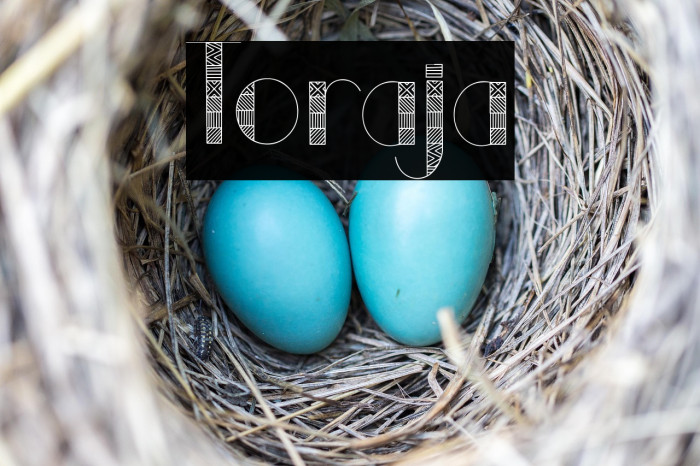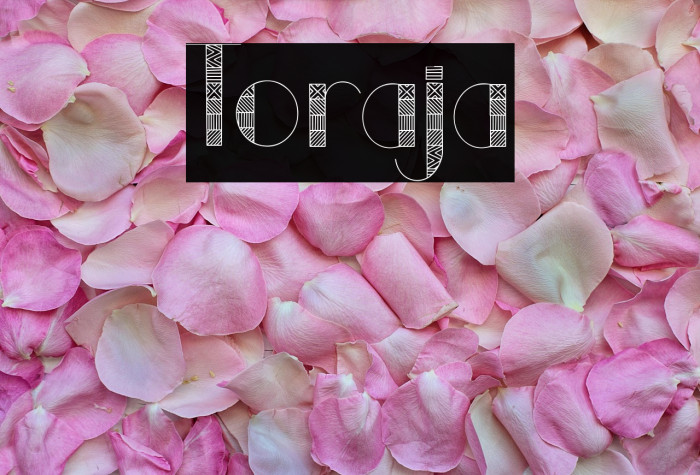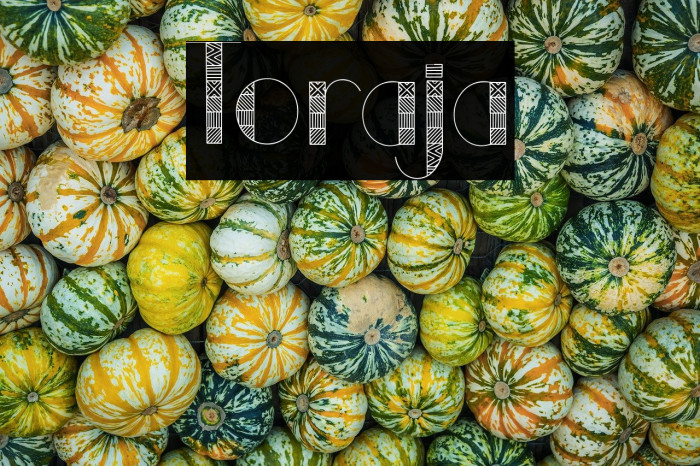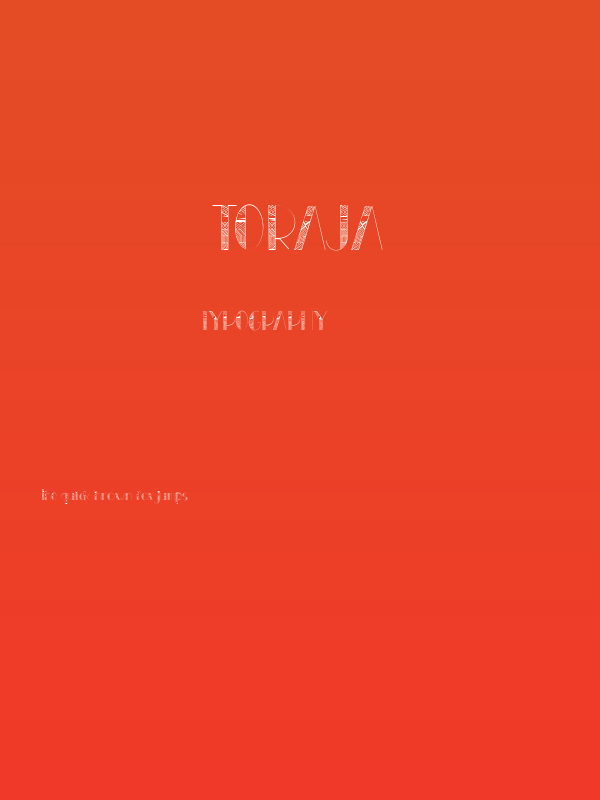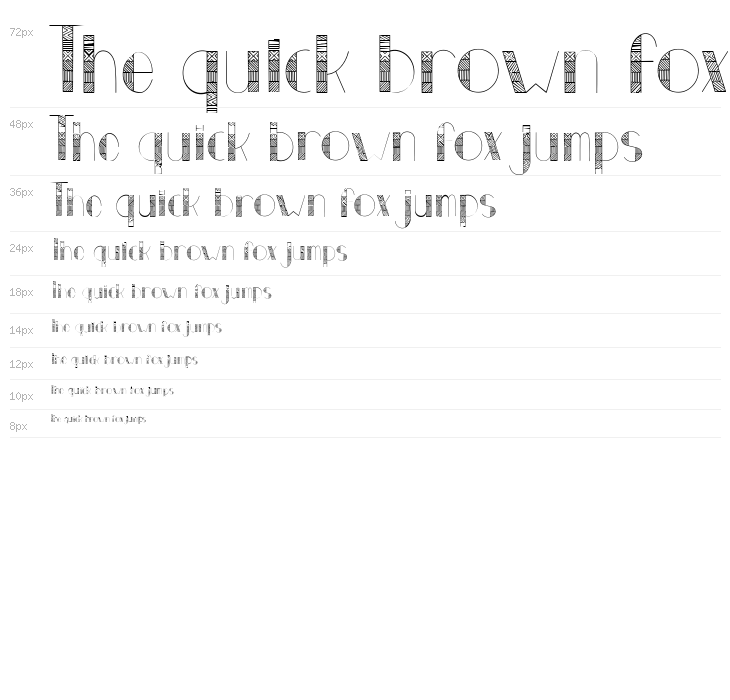
Toraja Font
Toraja Description
This font features a unique and intricate design, characterized by its decorative patterns within each letterform. The uppercase and lowercase letters, as well as the numbers, are filled with geometric and tribal-inspired motifs, creating a visually striking appearance. The font maintains a consistent line weight throughout, with a medium contrast between the filled and unfilled areas. The overall style is decorative and artistic, making it suitable for projects that require a bold and eye-catching typeface. The character spacing is normal, ensuring readability despite the complex internal designs.
| Use Case | Logos, Posters, Artistic projects |
| Proposed Projects | Ideal for branding, posters, and artistic projects that require a bold and unique visual impact. |